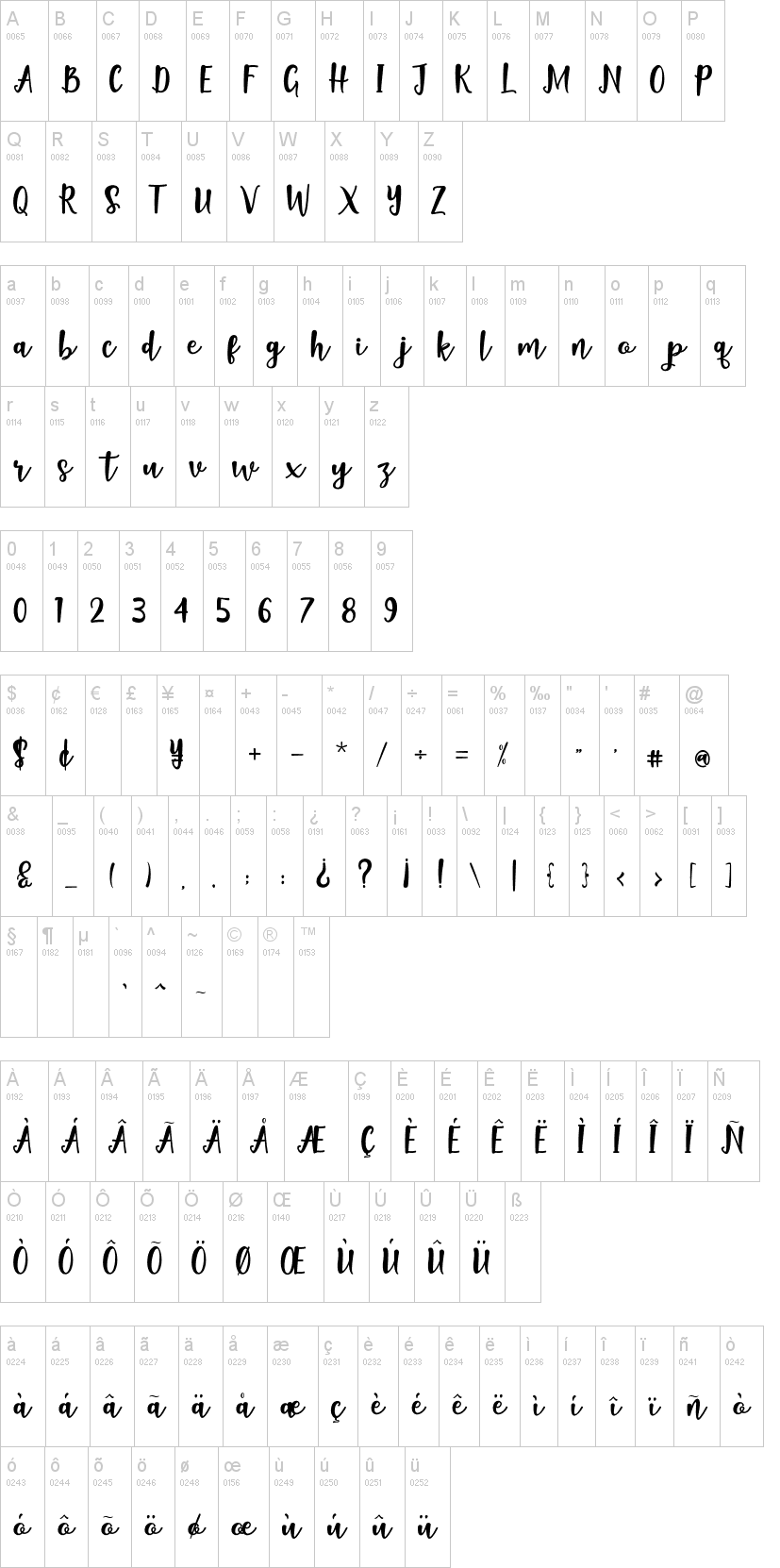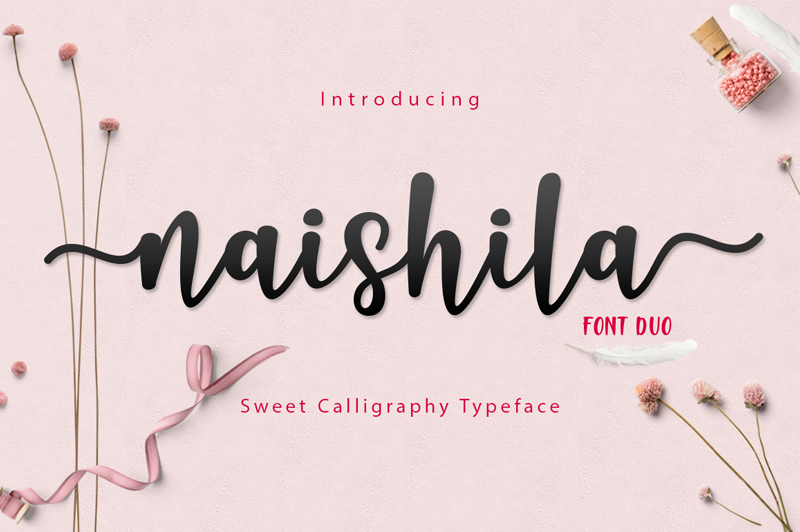
Note of the authorIntroducing Naishila is a lovely and sweet font duo. This new font family includes a caps and script. Naishila is a lovely and sweet font with a dancing baseline. But here you will also receive regular font (not dancing). The script comes with stylistic sets and ligatures.
Still as before, Naishila also be used to meet the growing market of design today. This font has a model semi-bold, stylish, cute, lovely, sweet and soft. It is suitable for use in design styles such as watercolor, minimalist, flat, modern design, etc. Coming up with the font duo, you can very easily combine. Surely you can easily make something perfect for your design.